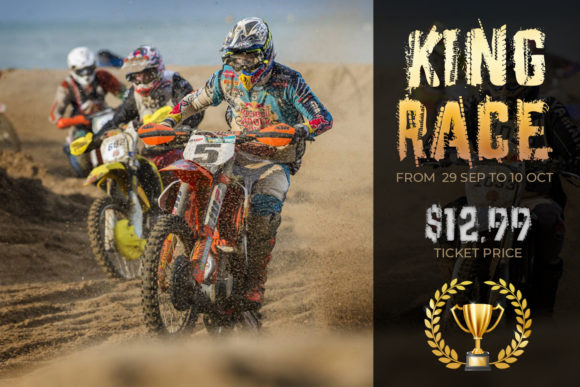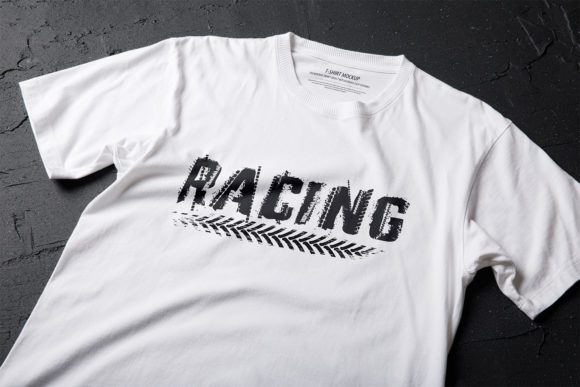
Tire Tracks Font
Tire Tracks is a bold, chunky lettered and uniquely designed display font. Add it to your most creative ideas and notice how it makes them come alive!